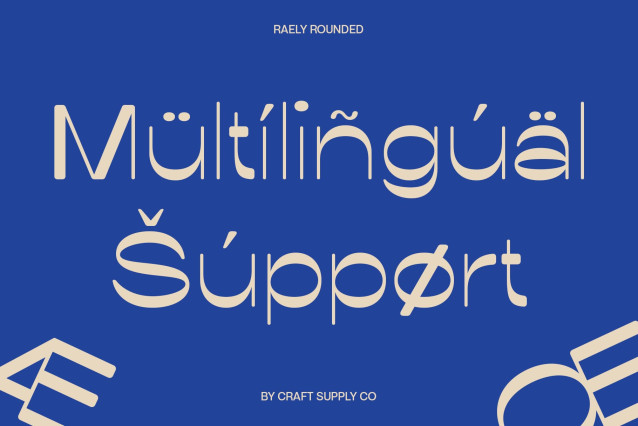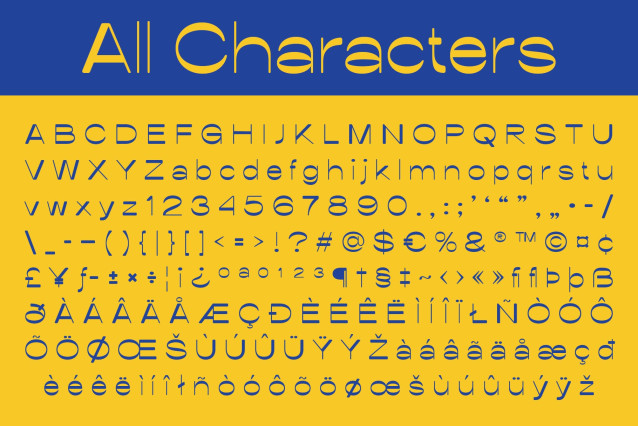
Raely Rounded Font
Raely Rounded Font is a sans serif font that stands out with its delicate thin strokes combined with a distinctive reverse contrast, where the usual thick and thin parts of letters are inverted. This uncommon feature adds visual intrigue and a dynamic rhythm to the typeface, balancing refinement with bold personality.